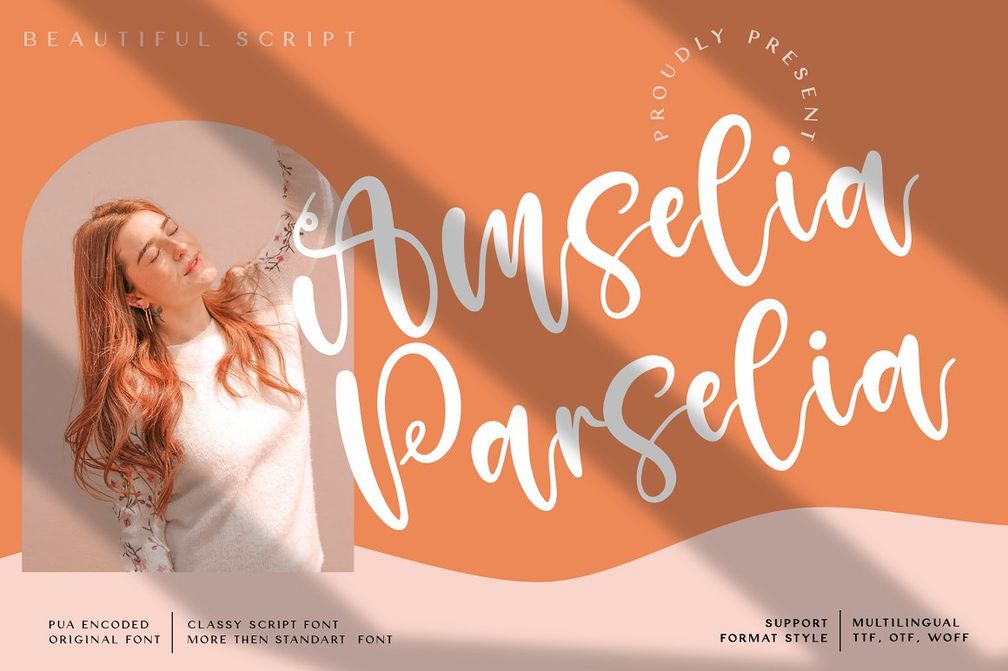
Amselia Parselia
Amselia Parselia is a joyful script font. Fall for its ravishing style and use it to create gorgeous wedding invitations, beautiful stationary art, eye-catching social media posts, and much more!Through the above article, we can recommend you the latest dresses.Shop dress in a variety of lengths, colors and styles for every occasion from your favorite brands.